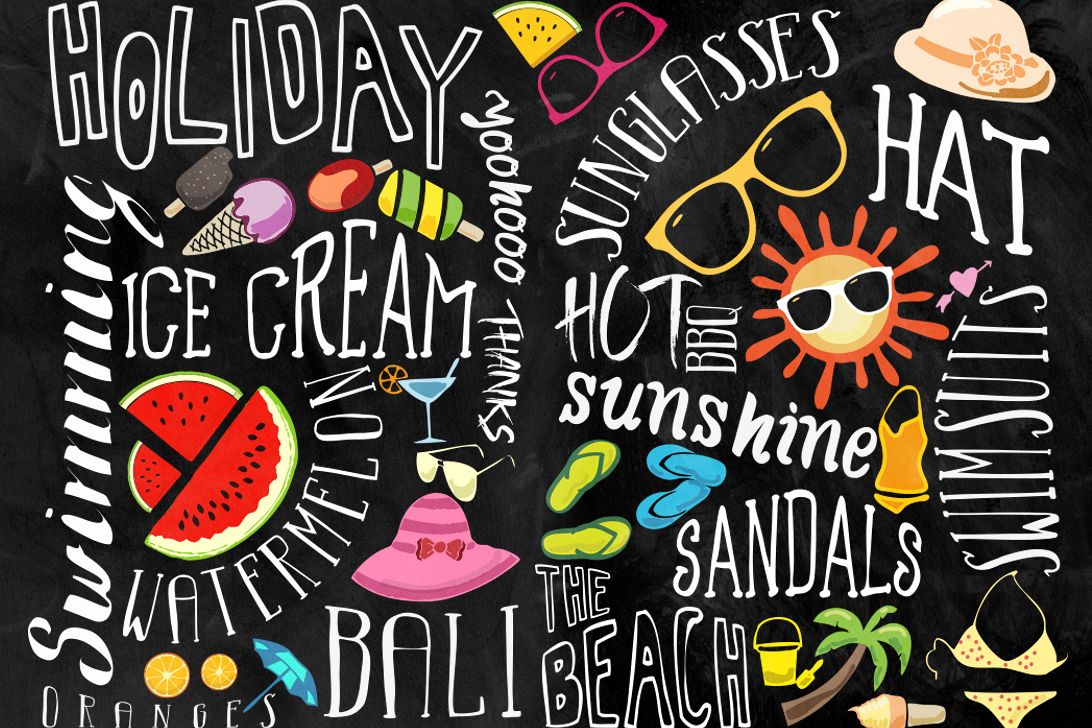
LEILA
Callalily
SUMMERICA
VINCENT TYPE
VACAMOUS
Holisun
Hello, Packed full of handmade, Great For: Attention-grabbing header text, logos, clothing designs, poster, badges, quote, etc.Here's what you get: